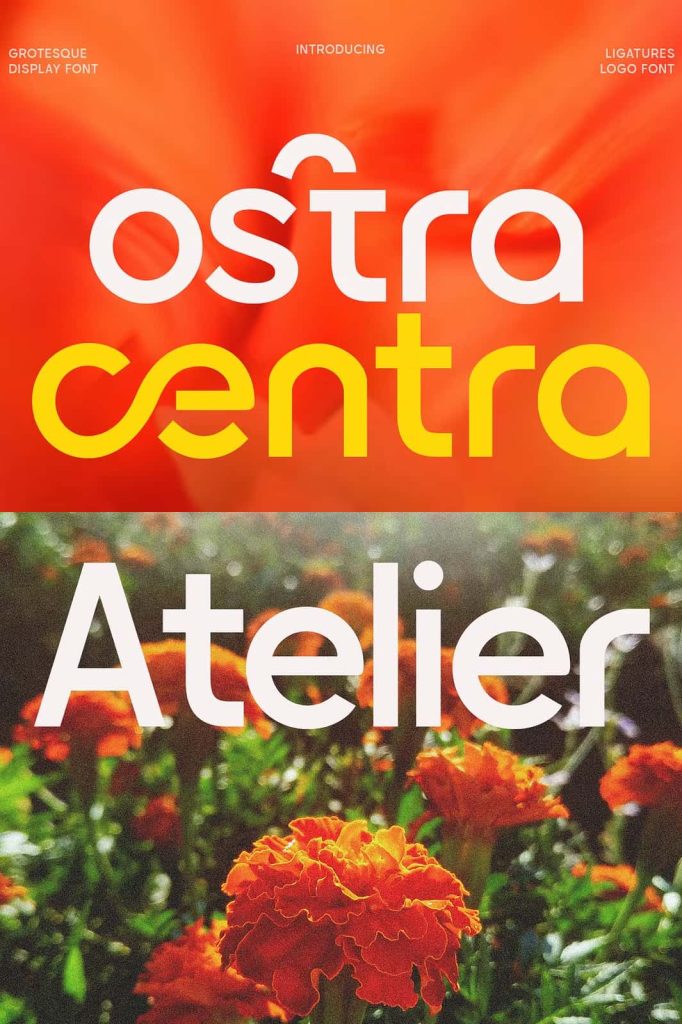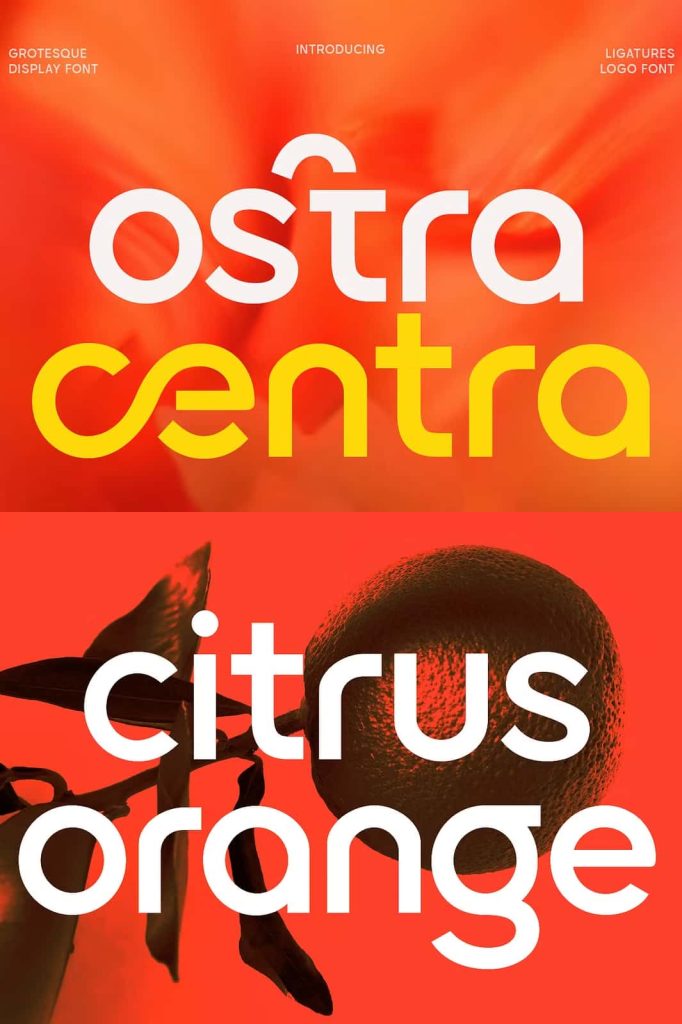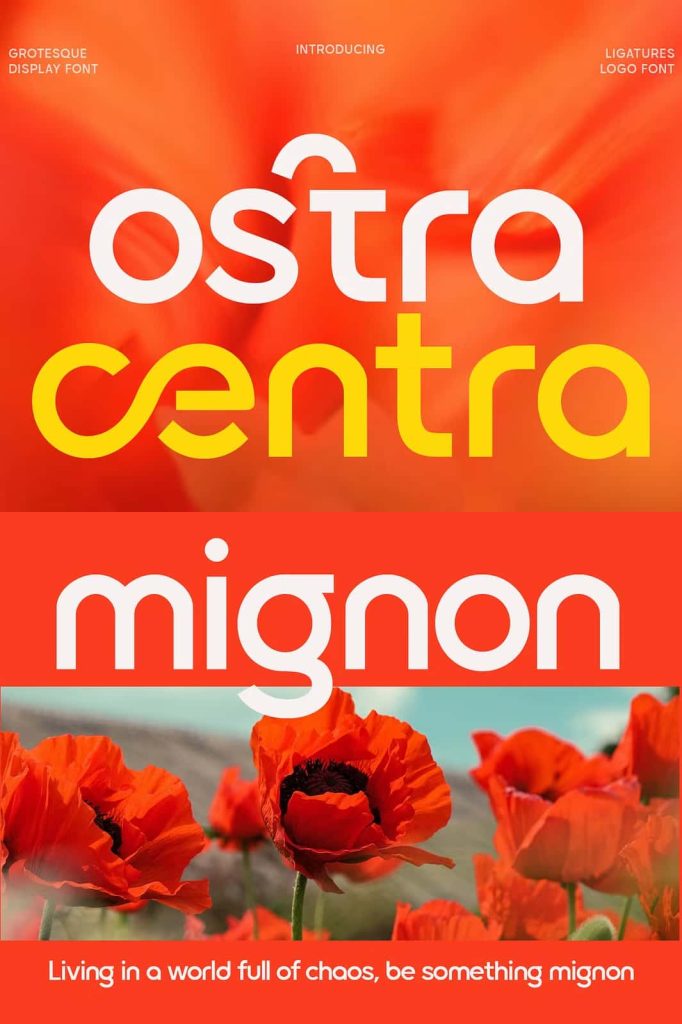
Ostra Centra – Geometric Sans
Ostra Centra Font
Ostra Centra is a fresh grotesque display font designed for creatives who want to combine modern structure with expressive personality. This distinctive typeface uses playful curves, minimalist geometry, rounded terminals, and sharp ligatures to create a confident visual identity. Its contemporary appearance gives every word a strong presence while maintaining a clean and approachable character.
Designed for modern branding and eye-catching typography, Ostra Centra works especially well when your project needs a font that feels polished without becoming predictable. Its bold display style allows headlines, logos, packaging, posters, and promotional graphics to communicate with clarity and confidence. At the same time, its unique letterforms add enough personality to help your designs stand apart from ordinary geometric or grotesque typefaces.
Modern Grotesque Character
Ostra Centra takes inspiration from the clean foundation of grotesque typography and pushes it toward a more playful contemporary direction. The typeface combines minimalist forms with carefully shaped curves, creating an attractive contrast between geometric precision and expressive details. This approach gives the font a modern rhythm that feels suitable for both established brands and emerging creative businesses.
The rounded terminals soften the overall appearance and make the characters feel friendly and accessible. Meanwhile, the sharper ligatures and distinctive alternates introduce a stronger visual edge. This combination allows Ostra Centra to move comfortably between sophisticated, futuristic, playful, and fashion-forward design styles.
Designed to Make Headlines Stand Out
Ostra Centra performs best when you want typography to become a central part of your composition. Its display-oriented construction gives headlines a strong visual impact without relying on unnecessary decoration. Large titles immediately gain more character, while short phrases can create memorable focal points across posters, advertisements, websites, and social media graphics.
Use Ostra Centra for campaign headlines, editorial titles, website hero sections, promotional banners, event graphics, and creative presentations. The font creates a confident visual voice that helps important messages attract attention quickly. Its balanced proportions also make it easier to build clean compositions around large typographic elements.
Creative Ligatures and Alternates
One of the defining qualities of Ostra Centra is its use of striking ligatures and alternate characters. These features give designers more control over the personality of their typography. Instead of relying on the same letter combinations throughout a project, you can introduce subtle variations that make selected words feel more distinctive.
Creative alternates can also help you customize logos, wordmarks, packaging titles, and campaign graphics. By choosing the right character combinations, you can develop typography that feels more individual and closely connected to your brand identity. This flexibility makes Ostra Centra more than a simple display font; it becomes a useful creative tool for building memorable visual systems.
Perfect for Branding and Logos
Ostra Centra offers a strong foundation for modern branding projects. Its clean geometry creates a professional appearance, while its rounded details and expressive characters prevent the design from feeling overly rigid. This balance works particularly well for brands that want to communicate innovation, confidence, creativity, and contemporary energy.
Use the font to develop logos, wordmarks, brand headlines, business cards, promotional materials, packaging labels, and digital brand assets. Its distinctive forms can help a short brand name become more recognizable and visually engaging. Designers can also combine Ostra Centra with a simpler supporting typeface to create a complete brand typography system.
Ideal for Fashion and Lifestyle Designs
The expressive character of Ostra Centra makes it a natural choice for fashion and lifestyle projects. Its contemporary shapes can create sophisticated typography for clothing labels, lookbooks, magazine covers, beauty campaigns, product launches, and promotional materials. The playful curves add personality, while the minimalist construction keeps the overall result clean and stylish.
For fashion branding, try using Ostra Centra in large uppercase headlines or carefully spaced wordmarks. You can pair its bold forms with generous whitespace to create a premium editorial appearance. For more energetic campaigns, combine its alternate characters and ligatures with strong layouts to create a youthful and dynamic visual identity.
Great for Packaging and Editorial Design
Ostra Centra can also transform packaging into a stronger visual statement. Its display proportions allow product names and short descriptions to remain prominent, even when surrounded by illustrations, photography, patterns, or other graphic elements. Use it for product labels, boxes, bottles, cosmetic packaging, food packaging, and specialty goods that need a distinctive contemporary look.
From technology brands and fashion labels to packaging, editorial layouts, posters, and digital campaigns, Ostra Centra adapts to a wide range of creative applications. If you want a contemporary display typeface that combines confident structure with expressive personality, Ostra Centra can bring a distinctive voice to your next design project.